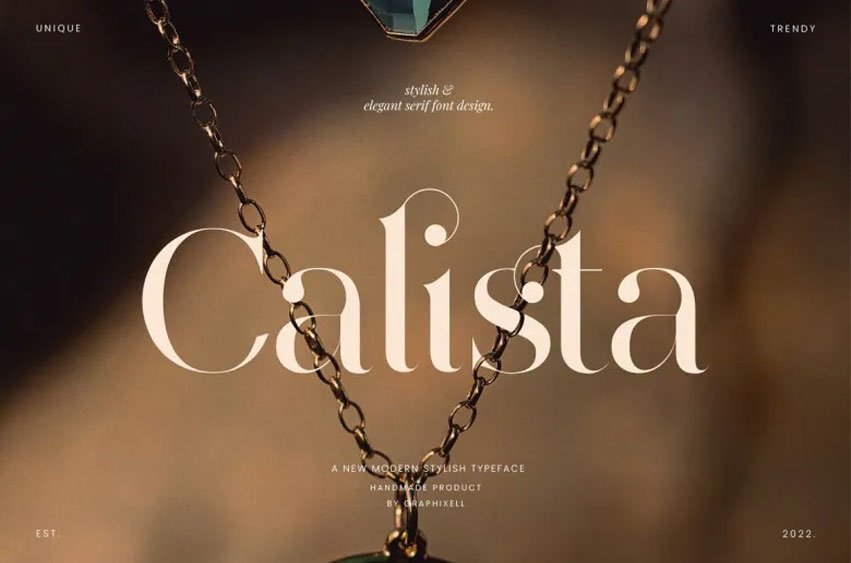
Calista Font
Calista Font is inspired by minimalism’s logo and is ideal for designing templates, brochures and videos.
Additionally, this font can also be used for invitations, layouts, elegant crafts, Instagram Templates (Instagram Templates for Instagram users), film Covers or Beauty Designs – among many other applications!